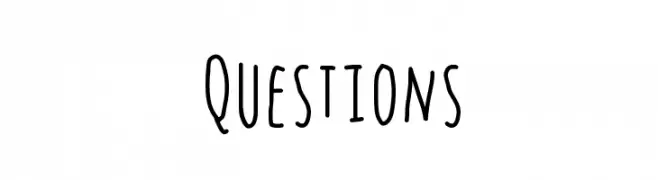
Questions Font
A playful, handwritten font with tall, narrow letterforms and a casual style.
Decorative symbols of stars, flames, and splatters with dynamic, bold shapes.
VTC-SumiSlasherOneSkinned Font
An artistic, thorny font with a hand-drawn, gothic-inspired style.
VTC-SumiSlasherOneSkinnedRaw Font
A chaotic, artistic font with swirling, splattered elements and varied stroke thickness.
QuestionsOfBranding Font
Font by Manfred Klein. Free for private and charity use. Free for commercial with donation to organizations
A creative pictogram font with diverse, surreal icons for each character.
Mechanist Mounted Font
Font by MalikDesign - Personal-use only. For commercial use please contact owner.
A bold, geometric font with a futuristic, industrial style.
KickQuestions Font
Font by Zkhai Creative - Personal-use only. For commercial use please contact owner.
A playful handwritten font with tall, narrow letterforms and smooth strokes.